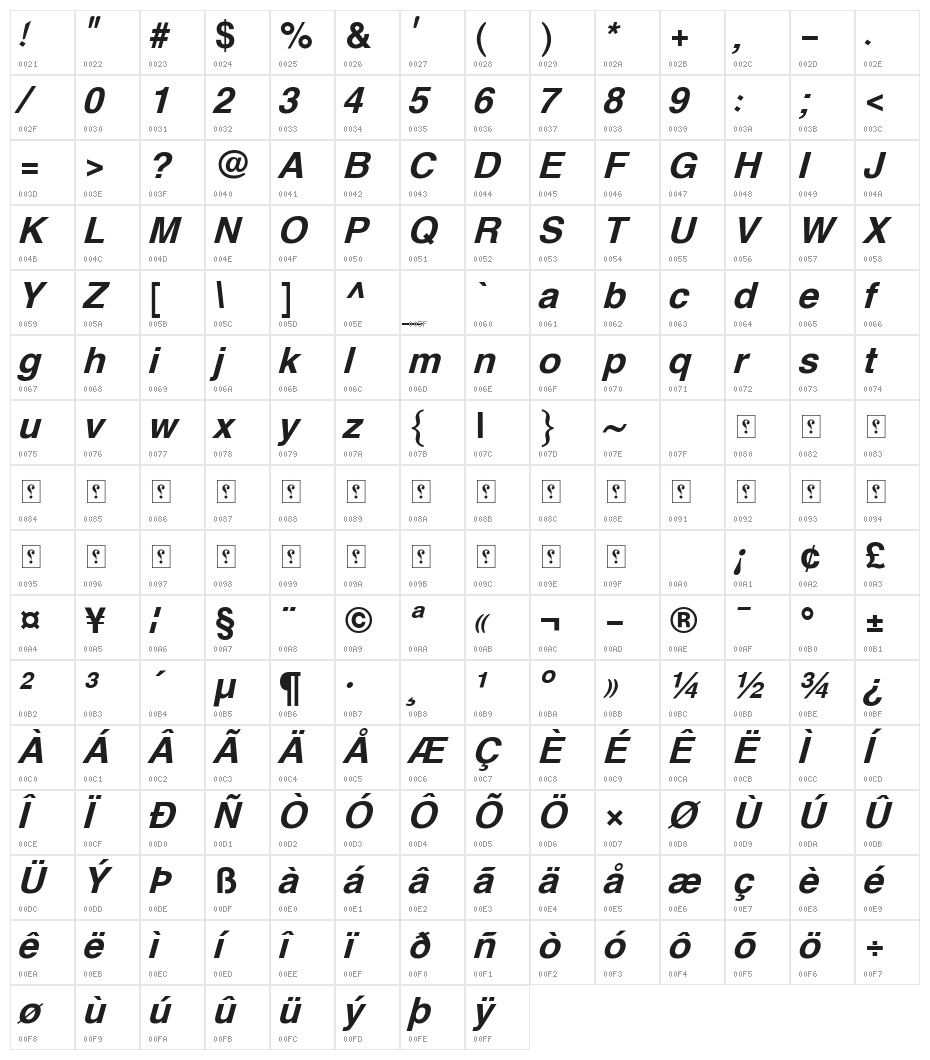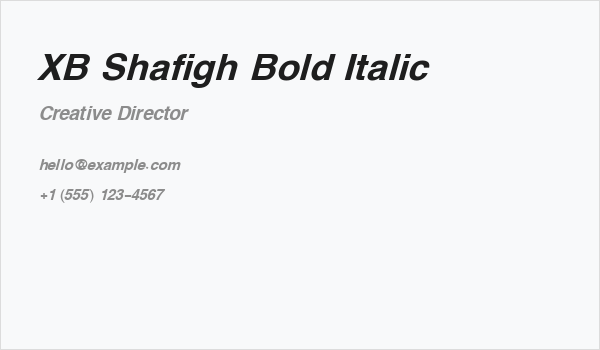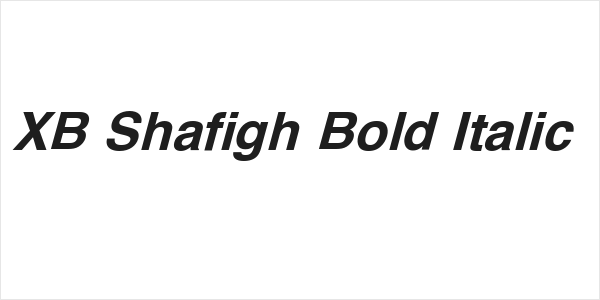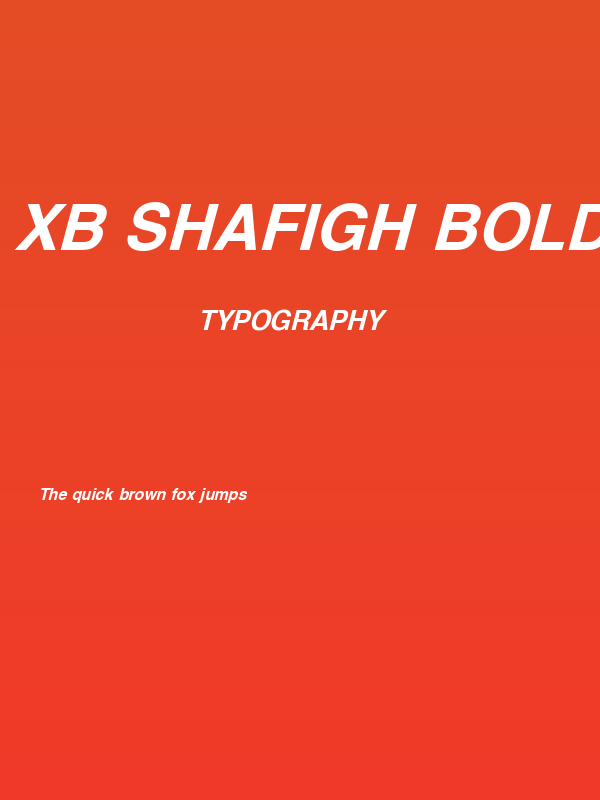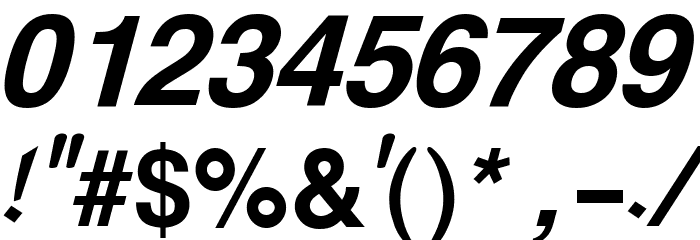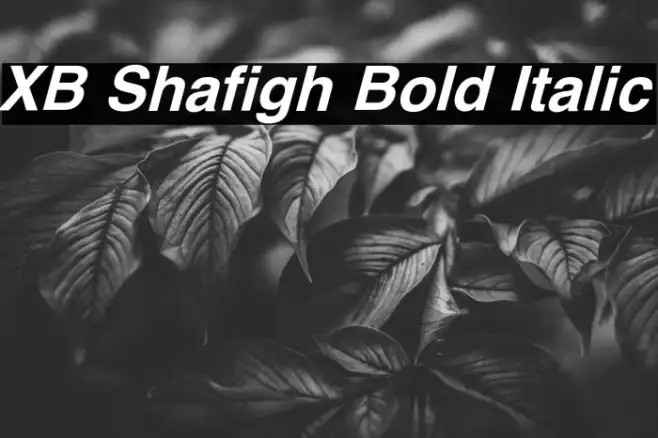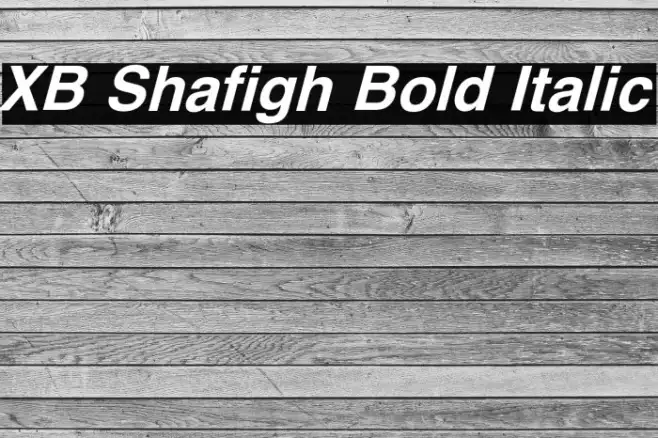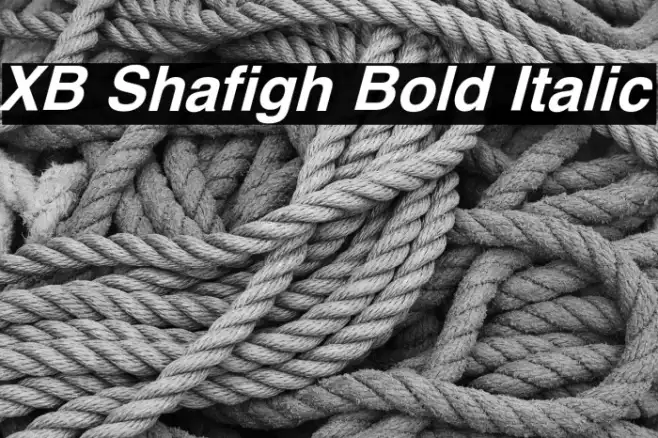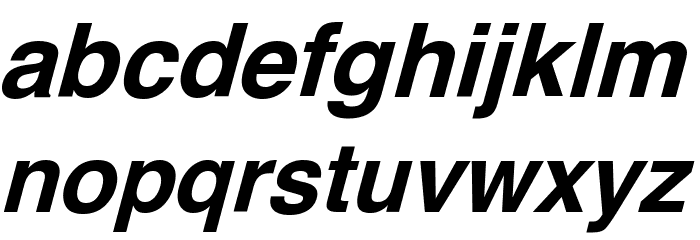
XB Shafigh Bold Italic Font
XB Shafigh Bold Italic Description
This font features a bold and italicized style, offering a dynamic and assertive appearance. The characters are slightly slanted, adding a sense of motion and energy. The strokes are thick and consistent, providing a strong visual impact. The uppercase and lowercase letters are well-proportioned, with a uniform width that ensures readability. The numerals are clear and distinct, maintaining the bold aesthetic. Special characters are included, matching the overall style with a cohesive look. This font is suitable for making statements and drawing attention.
| Proposed Projects | Ideal for headlines, posters, branding, and advertising where a strong, impactful presence is needed. |